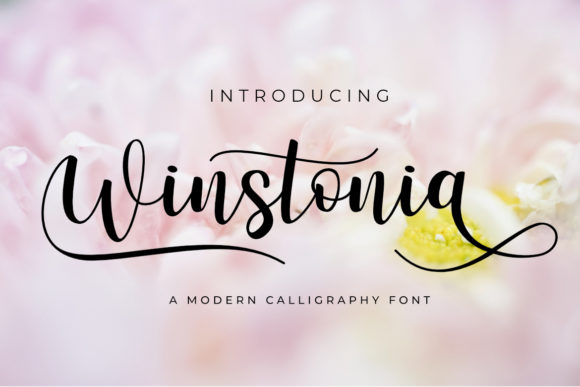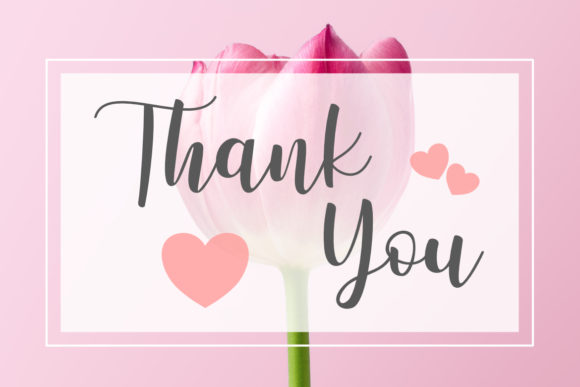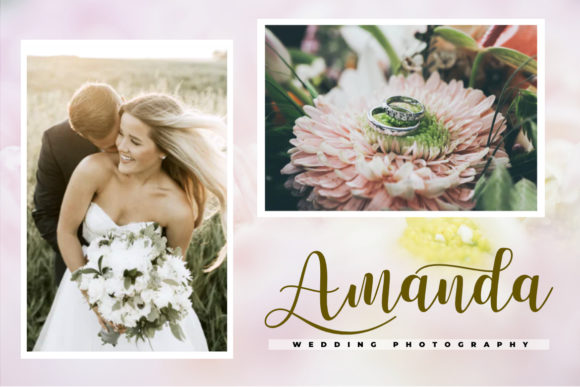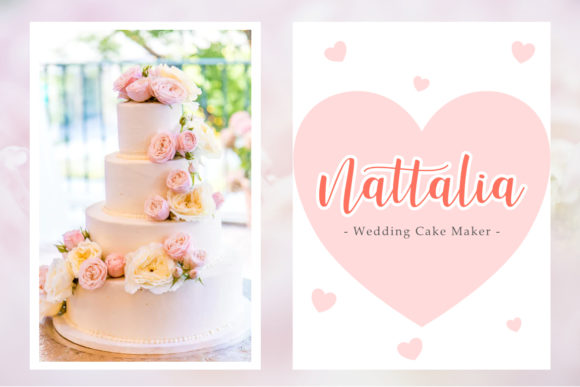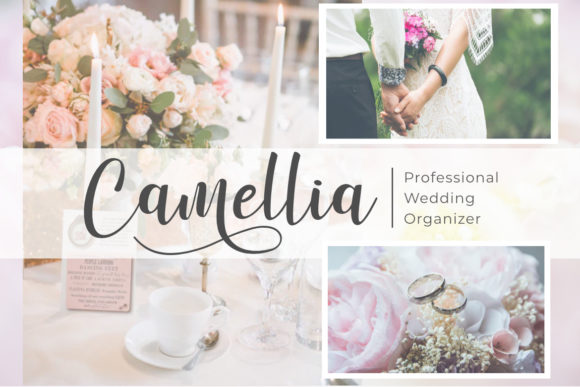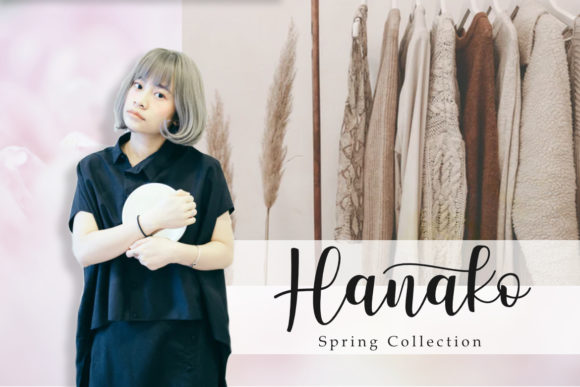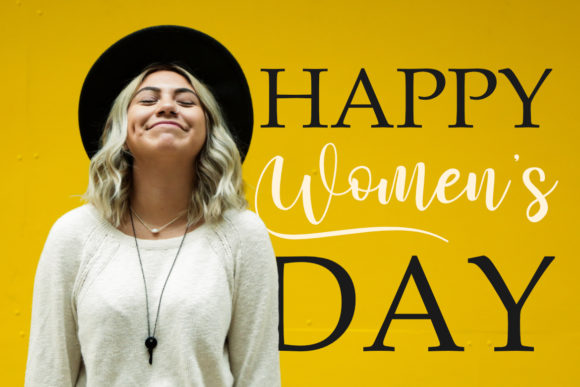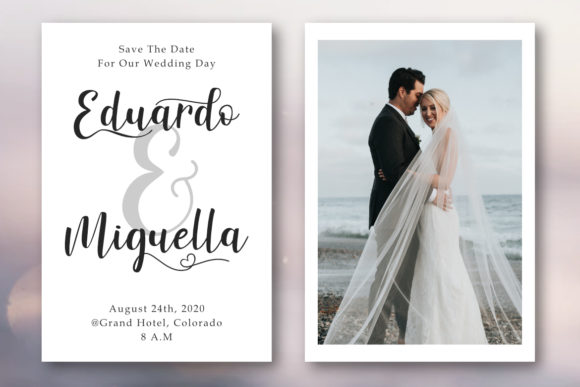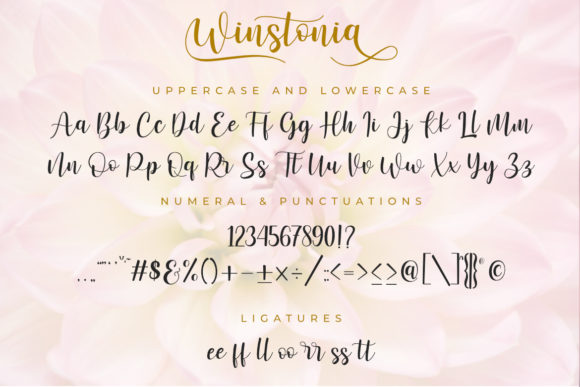
Winstonia Font
About Winstonia Font
Winstonia is a lovely handwritten font. It looks stunning on wedding invitations, thank you cards, quotes, greeting cards, logos, business cards and every other design which needs a handwritten touch.